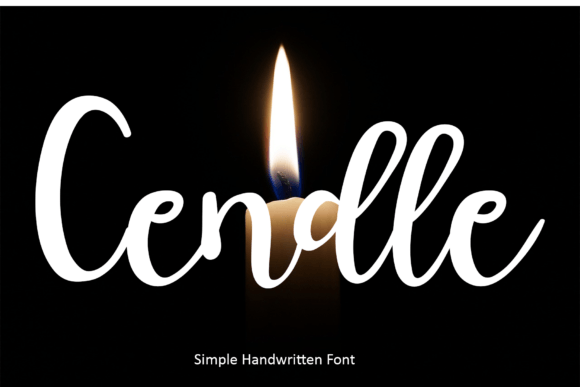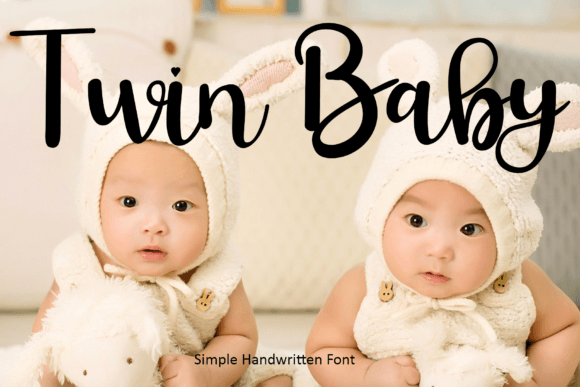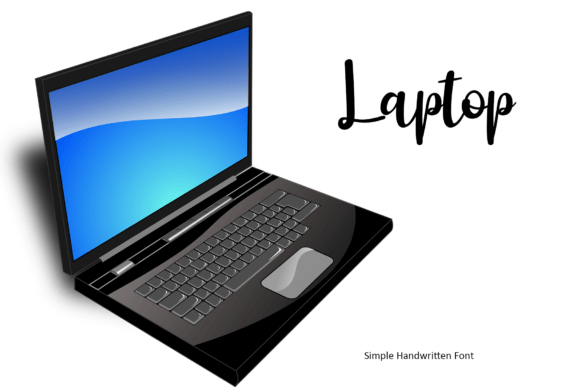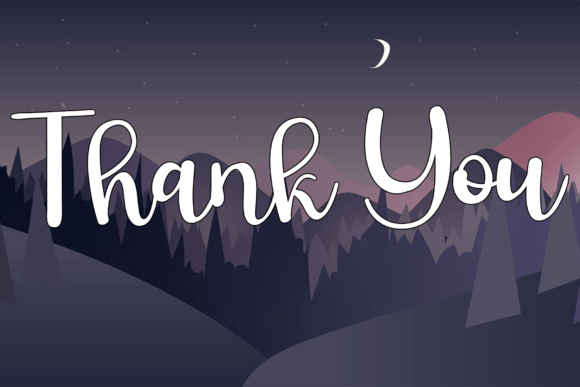
The Bolde Font: A Simple yet Powerful Handwritten Style
I’ll never forget the time I was working on a greeting card project, and I just couldn’t find the right font to convey the warmth and personality I was looking for. The client wanted something simple, yet elegant, and I was on the verge of giving up. That’s when I stumbled upon the Bolde font, a simple handwritten font that has since become a staple in my design toolkit.
Bolde is a versatile font that has a wide spectrum of applications, ranging from greeting cards to headlines, and is guaranteed to add a simple and natural feel to your next project! In this article, we’ll dive into the world of Bolde, exploring its features, uses, and some practical tips on how to make the most of it.
An Honest Review of Bolde
What I Love About Bolde ✨
• ✅ Simple and easy to read: Bolde has a clean and straightforward design that makes it perfect for body text and headlines.
• ✅ Versatile: Bolde works well in a variety of contexts, from digital designs to print materials.
• ✅ Handwritten feel: Bolde has a warm and personal touch that adds a human element to your designs.
• ✅ Highly legible: Even at small sizes, Bolde remains clear and easy to read.
While Bolde is an excellent font, it’s not without its limitations. Here are a few things to keep in mind:
• ⚠️ Limited embellishments: Bolde is a straightforward font, and it doesn’t have many embellishments or flourishes.
• ⚠️ May not work well with very long texts: While Bolde is legible, it may not be the best choice for very long texts, as it can become a bit monotonous.
The Story Behind Bolde
Bolde was designed with the intention of creating a simple, yet elegant handwritten font that could be used in a variety of contexts. The designer wanted to create a font that was easy to read, yet had a personal touch. The result is a font that’s perfect for designers, crafters, and creative hobbyists who want to add a human element to their designs.
Q: What is Bolde font?
A: Bolde is a simple handwritten font that’s perfect for a variety of design projects, from greeting cards to headlines.